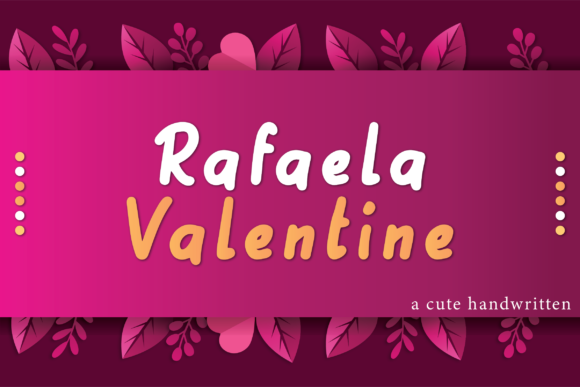
Journey into the enchanting realm of Rafaela Valentine, a script font family that exudes elegance and allure. Embark on a creative voyage where your words dance with grace and charm. Rafaela Valentine is an ode to individuality, a testament to the power of self-expression through typography.
Step into a world of infinite possibilities, where every letter tells a story. Whether you're crafting heartfelt greetings, designing captivating logos, or adorning your social media posts with a touch of whimsy, Rafaela Valentine is your trusted companion. Its delicate strokes and sweeping curves add a touch of sophistication to any project, leaving an unforgettable impression on your audience.
Dive into a sea of creativity with Rafaela Valentine, and watch your ideas blossom into masterpieces. This versatile font family is meticulously crafted to complement a diverse range of design aesthetics. From delicate wedding invitations to eye-catching social media graphics, Rafaela Valentine effortlessly adapts to your unique vision, enhancing your content with a touch of timeless elegance.
Unlock the true potential of your creative endeavors with Rafaela Valentine. Its meticulously crafted characters dance across the page, captivating your audience with their charm and beauty. Watch words transform into art, as Rafaela Valentine's enchanting aura adds a touch of magic to every project.
Experience the joy of crafting with Rafaela Valentine, and let your creativity soar. Its effortless flow and seamless integration make it a joy to use, allowing you to focus on expressing your ideas without technical hurdles. Dive into a world of endless possibilities, where your imagination takes center stage and Rafaela Valentine becomes your trusted partner in creating stunning visuals.